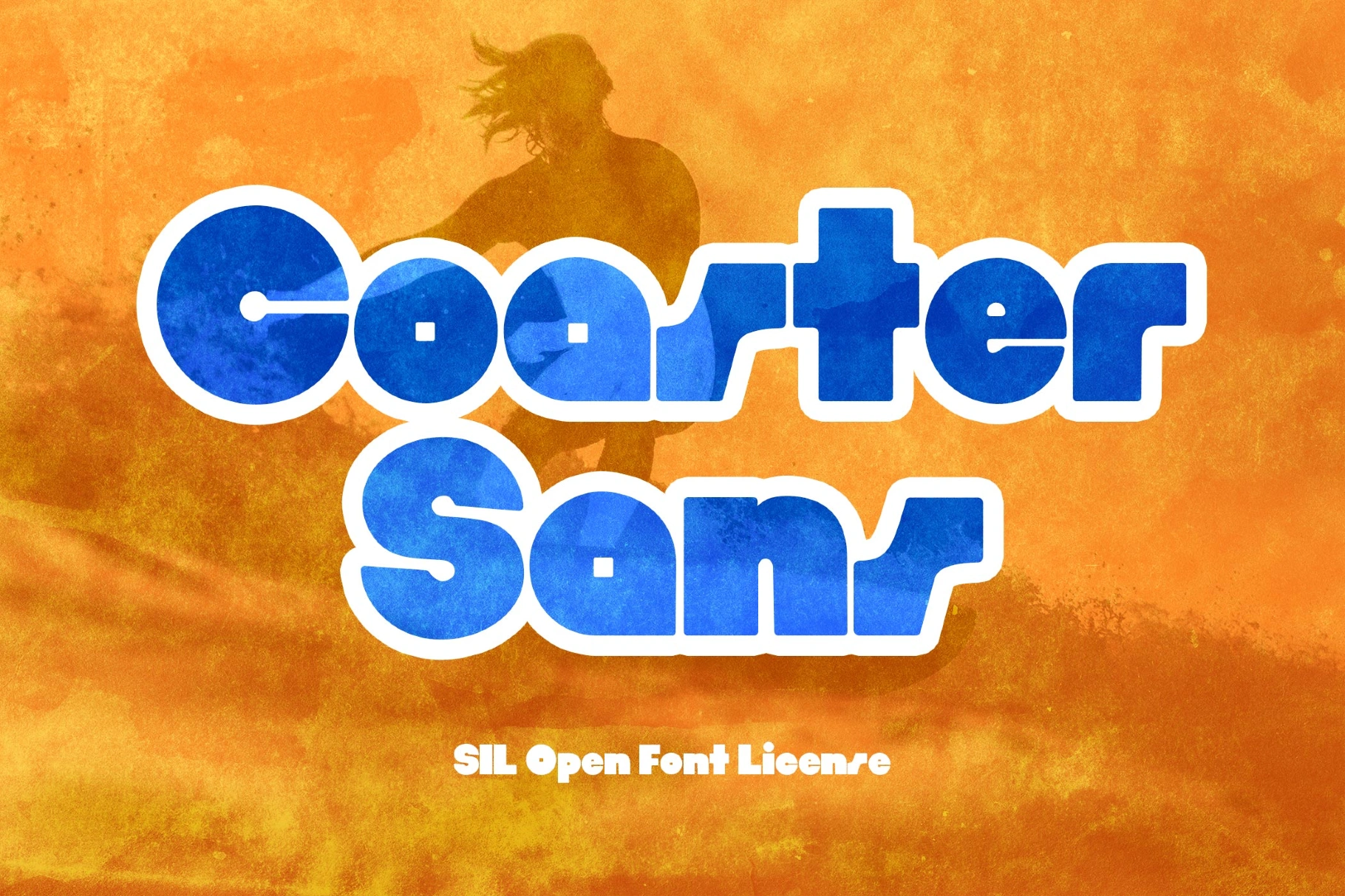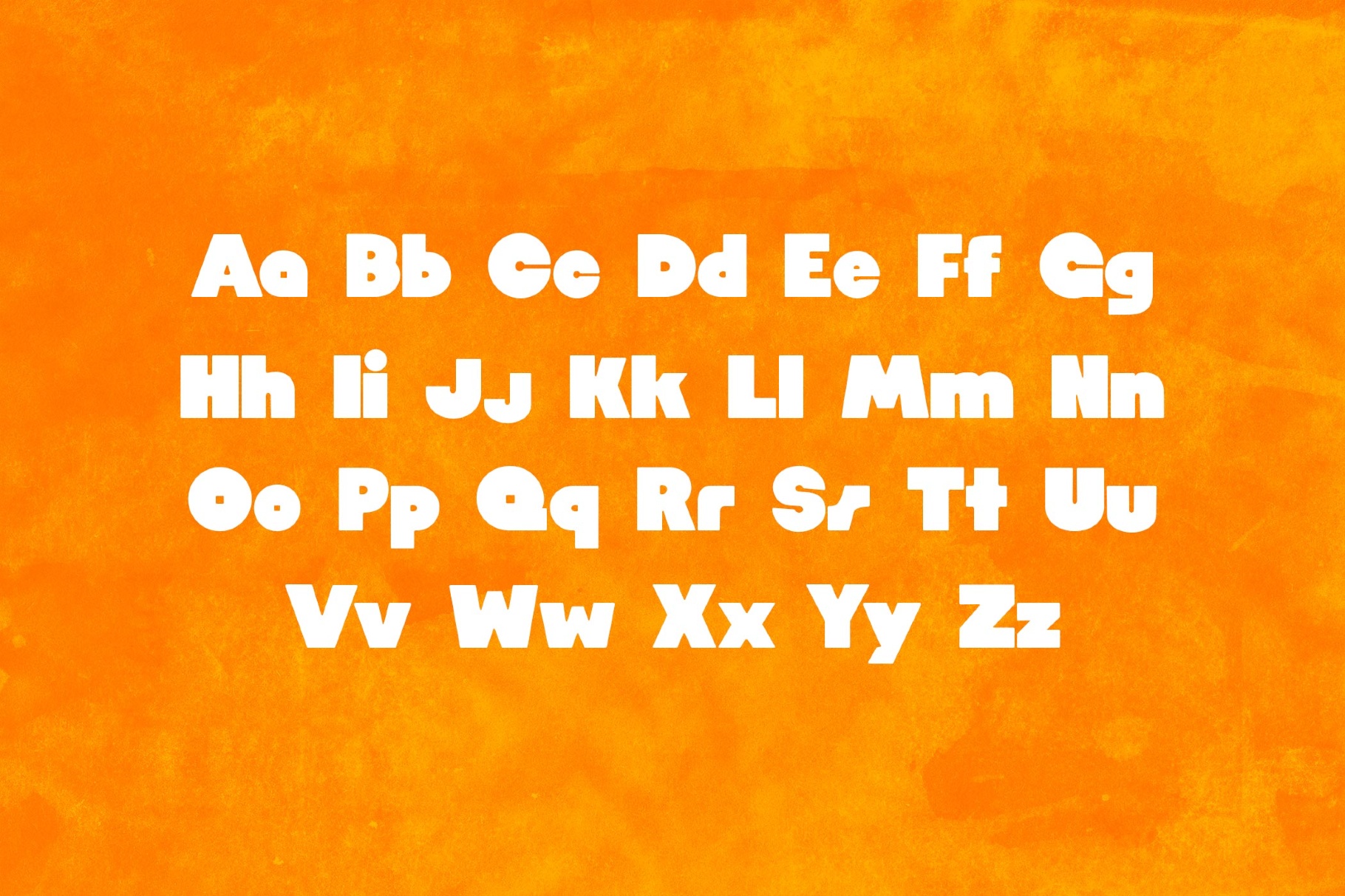
Coaster Sans Font
Coaster Sans has a chunky geometric character with the sun-faded optimism of 1970s surf posters, vintage packaging, and boardwalk signage, giving it a cheerful display presence with crisp structure. It suits poster titles, album covers, café branding, logo work, social media graphics, editorial openers and packaging.